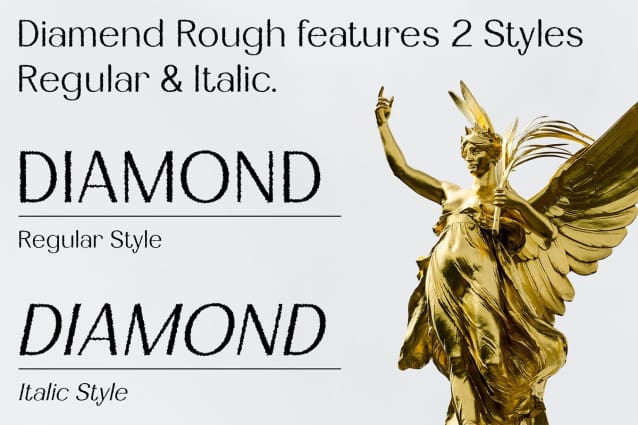
Diamend Rough Font
Diamend Rough Font is a modern sans-serif font that seamlessly blends sleek, clean lines with an elegant yet rugged design. Its smooth, minimalistic forms provide a sophisticated look, while the distinctive rough texture introduces a unique, tactile quality that sets it apart.
Refined with a Textured Finish Experience the perfect balance of refinement and ruggedness with Diamend Rough. The font’s elegant, smooth lines exude sophistication, while the textured finish adds a distinctive, gritty edge. This combination creates a font that is both stylish and visually intriguing.
Versatile for Upscale and Creative Projects Diamend Rough is ideal for a range of applications, from high-end branding and editorial designs to stylish marketing materials. Its ability to merge refined elegance with a touch of ruggedness makes it versatile, fitting seamlessly into both upscale and creative project contexts.
Elevate Your Design Infuse your projects with the distinctive charm of Diamend Rough. Its blend of modern elegance and rugged texture ensures a striking appearance, perfect for designs that demand both sophistication and a unique visual edge.